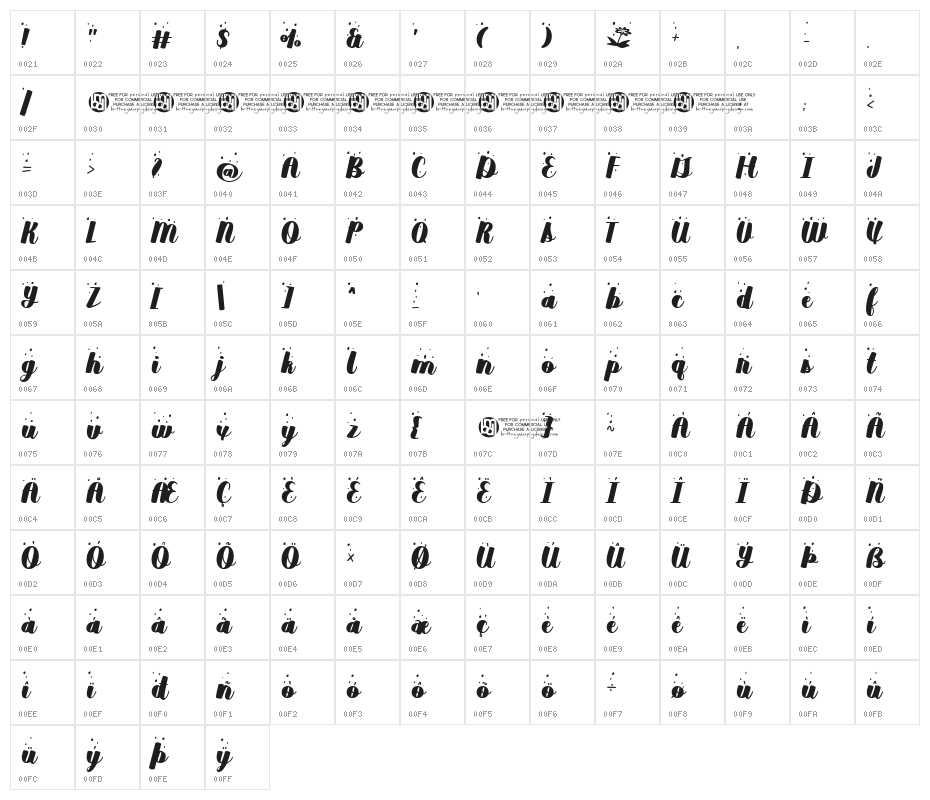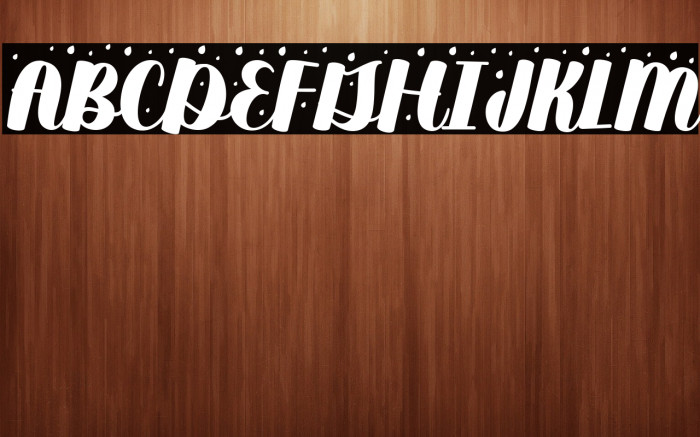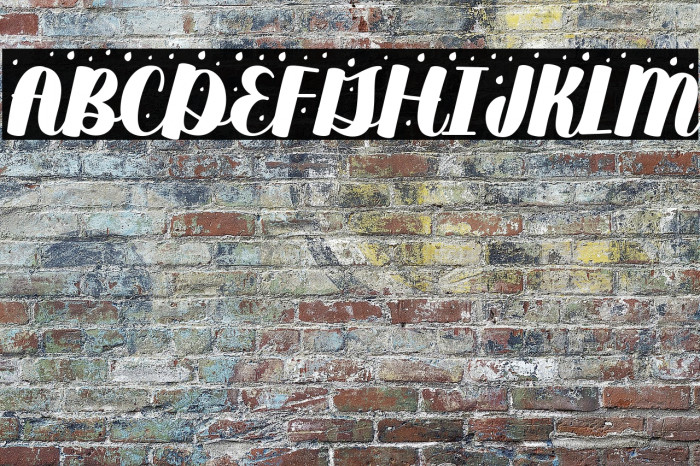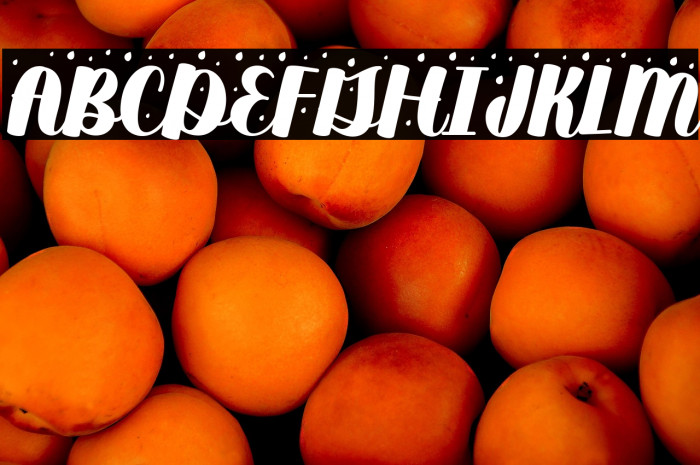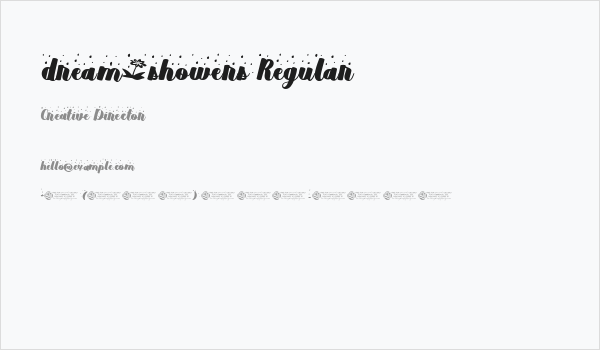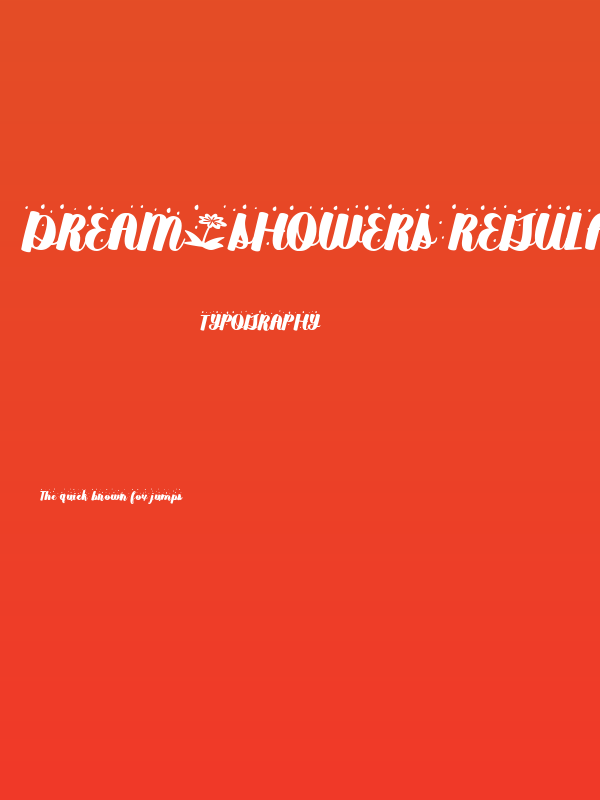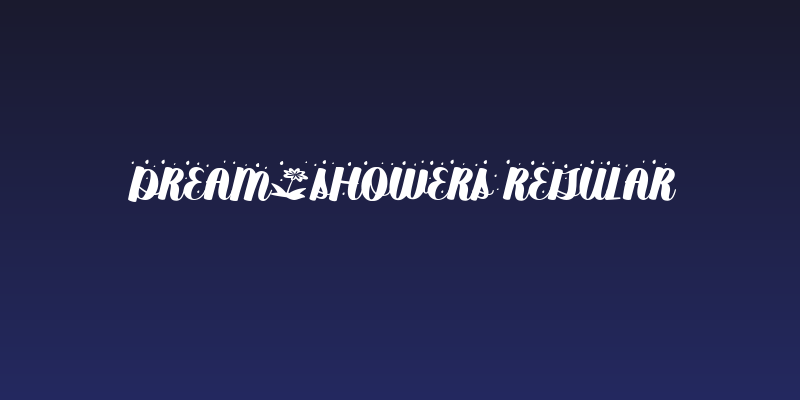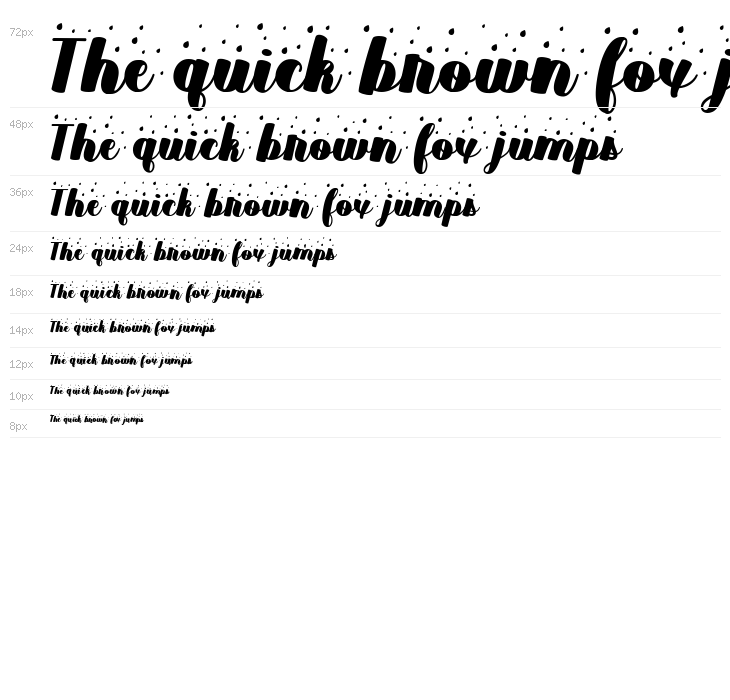
dream*showers Regular Font
dream*showers Regular Description
This font features a bold and flowing script style, characterized by its smooth, cursive strokes and elegant curves. The uppercase letters are prominently styled with a slight slant, giving a dynamic and lively appearance. The lowercase letters maintain a consistent flow, enhancing readability while retaining a decorative flair. The numerals and special characters are designed to complement the overall script style, ensuring a cohesive look across all text. This font's playful yet sophisticated design makes it suitable for a variety of creative applications.